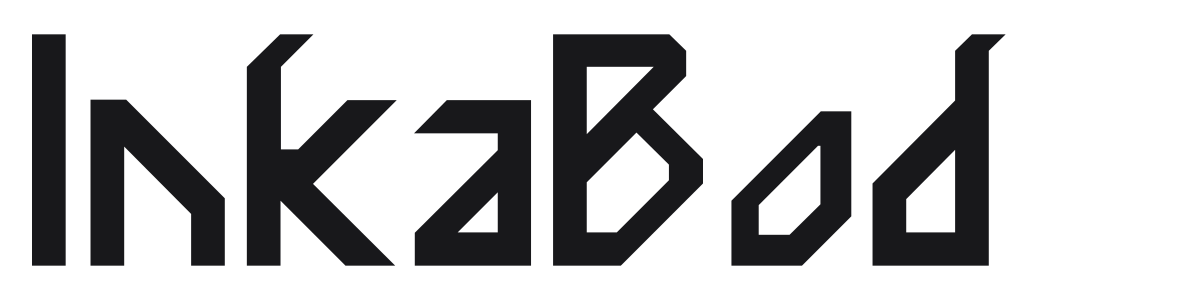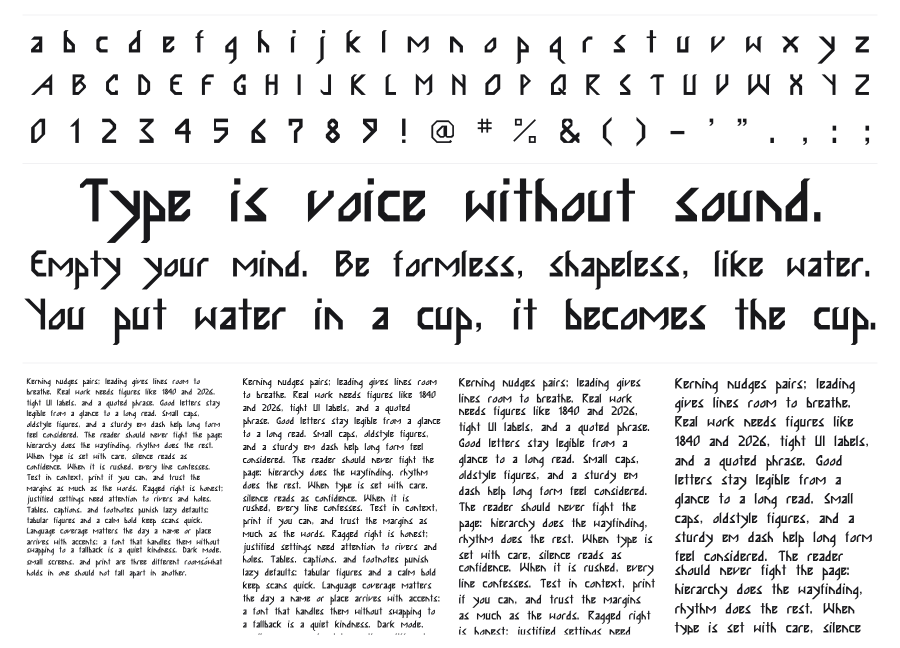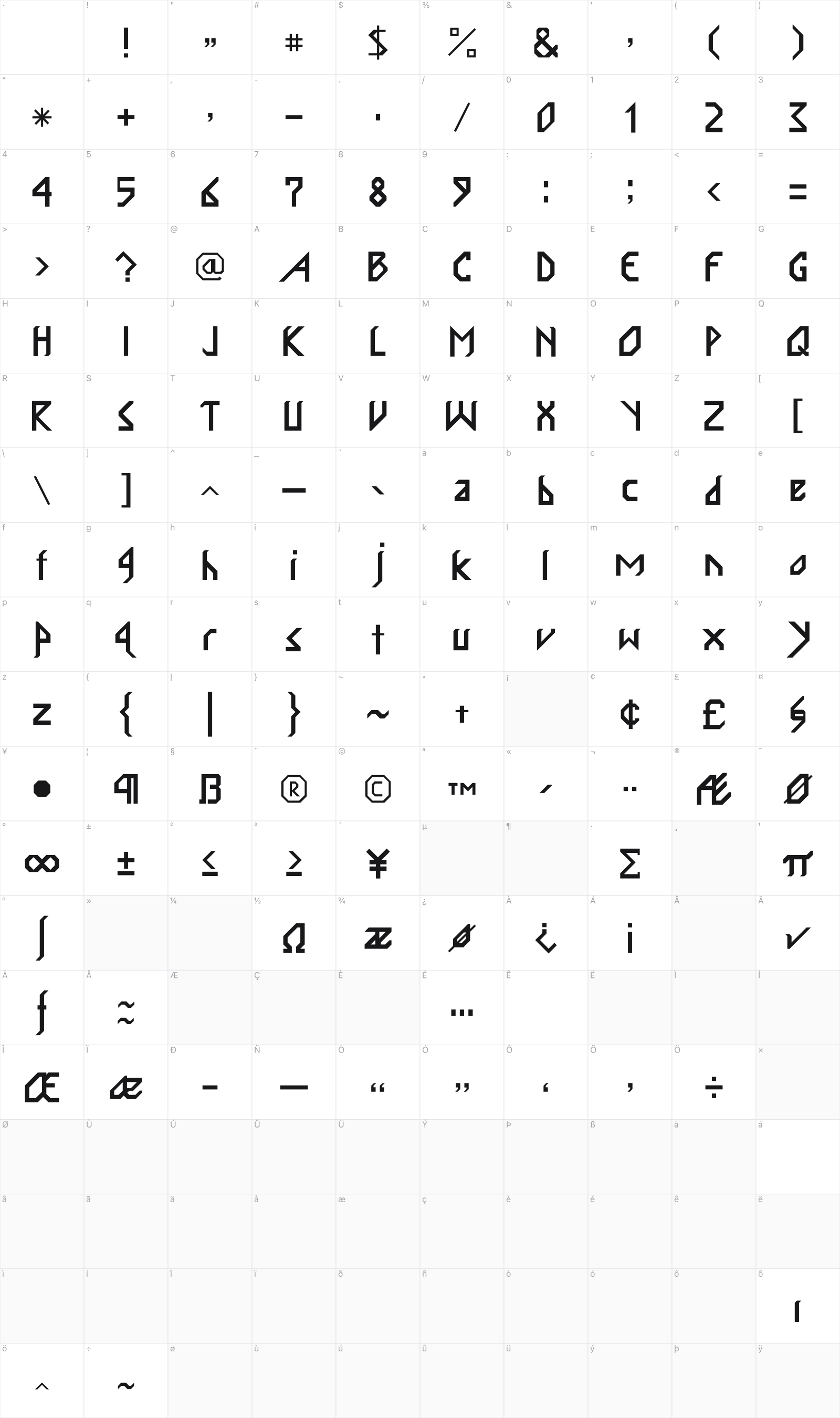
InkaBod
InkaBod is a bold angular sans-serif built entirely from straight lines and 45-degree angles, with not a single curve in sight. Based on the bitmapped Nordic font, every character has a sharp, almost runic construction that gives text a raw, geometric intensity. It reads as something between tribal carving and early digital design.